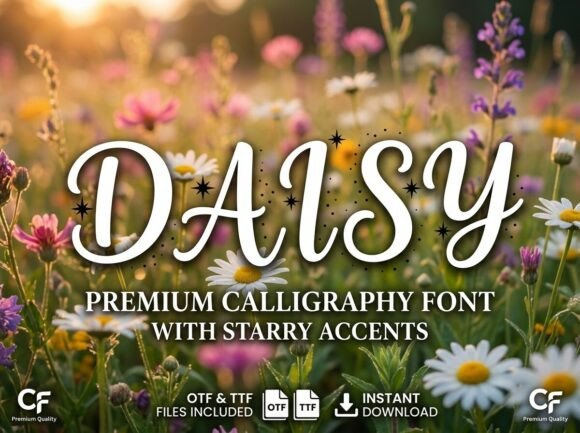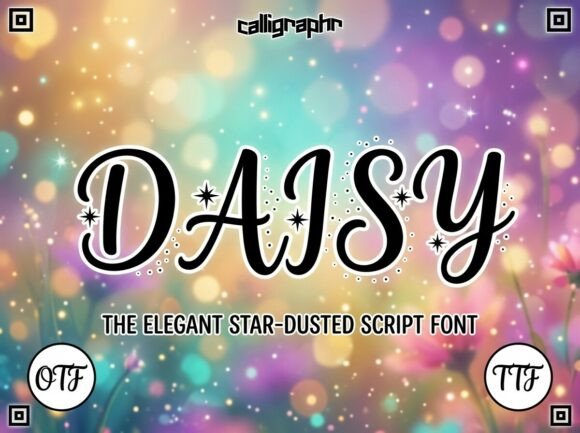
Sparkle with Every Word: The Enchanting Daisy Font
Are you looking for a font that adds a touch of magic to your designs? Look no further than Daisy, an enchanting calligraphy font that captures the essence of a “magical-and-graceful” soul. This beautiful typeface is perfect for designers and crafters who want to add a whimsical touch to their projects.
The Characteristics of Daisy Font
Daisy font features elegant, flowing letterforms characterized by rhythmic swashes and a dusting of hand-drawn stars and stardust that twinkle around each character. The fluid structural weight of this font gives it a sense of movement and fluidity, while its whimsical personality makes it perfect for a variety of creative projects.
Perfect for Whimsical Designs
With its enchanting and elegant design, Daisy font is the premier choice for independent fairytale branding, mystical event invitations, boutique nursery decor, and high-impact “starlit-and-dreamy” social media headers. Whether you’re designing a logo, creating a social media post, or crafting a invitation, Daisy font is sure to add a touch of magic to your project.
Use Cases for Daisy Font
• Fairy Tale Branding: Create a whimsical and enchanting brand identity with Daisy font. Perfect for children’s book authors, toy designers, and anyone who wants to evoke a sense of wonder and magic.
• Mystical Event Invitations: Invite guests to a mystical and magical experience with Daisy font. Perfect for events like weddings, baby showers, and birthday parties.
• Boutique Nursery Decor: Add a touch of elegance and whimsy to nursery decor with Daisy font. Perfect for boutique nurseries, children’s clothing, and baby accessories.
• Social Media Headers: Create high-impact social media headers that sparkle and shine with Daisy font. Perfect for bloggers, influencers, and businesses who want to add a touch of personality to their social media profiles.
Why Choose Daisy Font?
So why choose Daisy font for your next project? Here are just a few reasons:
• Unique and Whimsical: Daisy font is a one-of-a-kind typeface that adds a touch of whimsy and magic to any project.
• Elegant and Sophisticated: Despite its whimsical nature, Daisy font is also elegant and sophisticated, making it perfect for high-end designs.
• Versatile: Daisy font can be used for a wide range of projects, from branding and invitations to nursery decor and social media headers.
Tips for Using Daisy Font
Here are a few tips for using Daisy font in your designs:
• Use it sparingly: While Daisy font is beautiful, it can be overwhelming if used too much. Use it sparingly to add a touch of magic to your design.
• Pair it with a simple font: Pair Daisy font with a simple font to create contrast and make your design more readable.
• Experiment with colors: Don’t be afraid to experiment with different colors and textures to add depth and interest to your design.
In conclusion, Daisy font is a beautiful and enchanting calligraphy font that adds a touch of magic to any project. With its elegant, flowing letterforms and whimsical personality, it’s perfect for designers and crafters who want to create unique and eye-catching designs. Whether you’re designing a logo, creating a social media post, or crafting a invitation, Daisy font is sure to sparkle with every word.